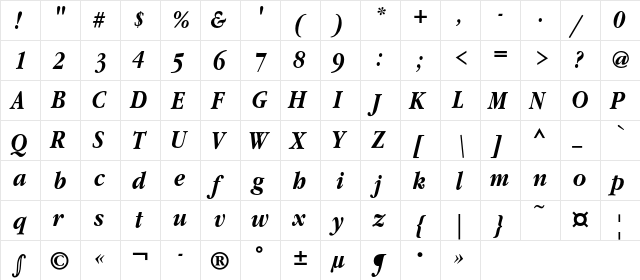
GaramondNarrowC Bold Italic Font Preview
Design Context for GaramondNarrowC Typeface
GaramondNarrowC offers clean, dependable letterforms without strong stylistic allegiance, making it a practical choice for designers who need flexibility. The dynamic lean of this cut emphasises speed and emphasis in any layout. The heavy weight commands attention and anchors typographic hierarchies. The condensed width makes it efficient for tight spaces without sacrificing legibility.